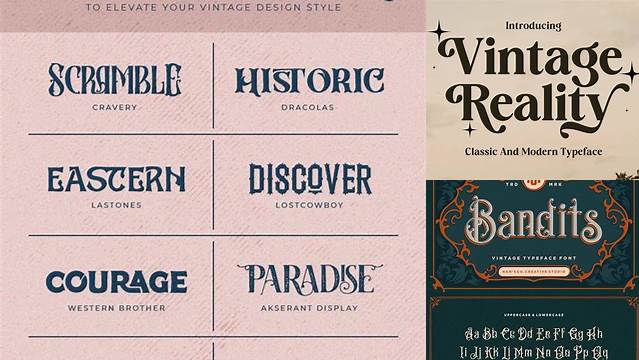
Vintage Fonts: Your Guide To Classic Typography
Hey everyone! Ever felt like your designs were missing that certain je ne sais quoi? Maybe they need a touch of history, a dash of nostalgia, or a whole heap of character. Well, guys, you're in luck! Today, we're diving deep into the world of free vintage fonts – the unsung heroes of design that can transform your projects from bland to grand. We'll explore where to find these typographic treasures, how to use them effectively, and even a few tips and tricks to make your designs really pop. Whether you're a seasoned designer or just starting out, this guide has something for everyone. So, grab your favorite beverage, settle in, and let's get started on our journey through the timeless world of free vintage fonts!
Free Vintage Fonts: A Treasure Trove for Designers
Okay, so what exactly are we talking about when we say free vintage fonts? Think of it like this: these are fonts that evoke the styles of yesteryear, drawing inspiration from specific eras, like the roaring twenties, the groovy sixties, or the elegant Victorian age. They're not just about mimicking old styles; they're about capturing the essence of a bygone era. The beauty of free vintage fonts is that they're incredibly versatile. You can use them for a wide array of projects, from crafting eye-catching logos and stunning websites to designing posters, invitations, and even social media graphics. They add an instant touch of personality and authenticity that can be difficult to achieve with more modern font styles. Finding the perfect free vintage fonts can feel like striking gold! But don't worry, we'll guide you through the best places to find these typographic gems.
It's essential to have a varied collection of fonts. Having a diverse range of free vintage fonts at your fingertips empowers you to choose the best fit for each project. Consider the specific era you're trying to emulate, the overall tone you want to convey, and the readability of the font. Remember that vintage fonts aren't just about aesthetics; they are also about visual communication. Readability is important, but so is capturing the specific feeling you are targeting. Remember to select a font that's legible, especially for body text. When choosing a font, ensure it complements the other design elements. Some of the most popular free vintage fonts are inspired by Art Deco, the Wild West, and vintage hand-lettering styles. By exploring these different styles, you can add depth and character to your designs, making them more appealing to your audience and leaving a lasting impression.
Where to Find Awesome Free Vintage Fonts
Types of Vintage Fonts and Their Uses
Now that you know where to find them, let's talk about the different types of free vintage fonts and how to use them to their full potential. Vintage fonts come in many shapes and styles, each evoking a particular aesthetic. Understanding these styles will help you select the perfect font for your projects. Here are some of the most popular types:
- Art Deco Fonts: These fonts are characterized by their geometric shapes, bold lines, and a sense of luxury. They're perfect for anything that needs a touch of glamour, such as event invitations, branding for high-end products, or even website headers.
- Victorian Fonts: Victorian fonts often feature elaborate serifs, ornate details, and a sense of old-world charm. They are often inspired by the Victorian era, but they are versatile and useful for different projects. You could use these fonts for book covers, wedding stationery, or anything that requires an elegant, classic look.
- Retro Fonts: Retro fonts are inspired by the design styles of the 1950s, 60s, and 70s. These fonts are excellent for evoking a nostalgic feel, perfect for posters, logos, and websites. They often have a playful, vibrant aesthetic and are very effective at grabbing attention.
- Western/Wild West Fonts: These fonts evoke the spirit of the Wild West, with their rugged, weathered appearances. If you're aiming for an authentic, rustic feel, these are the fonts for you. They work great for posters, logos, and any project related to the outdoors.
- Handwritten Fonts: Handwritten fonts add a personal, human touch to your designs. These are suitable for any project, such as personal projects or any kind of commercial ones. They are excellent for adding a friendly, approachable vibe. Whether you’re designing a logo, a website, or social media graphics, these fonts will add a layer of personality.
Knowing the characteristics of different vintage font styles helps you match the right font to your project. Think about the message you want to convey, the era you're trying to capture, and the overall tone of your design. Experiment with combining different fonts to create unique looks. With a basic understanding of different vintage font types, you can select the appropriate font. This ensures your design is not only visually appealing but also effectively communicates your message.
Pairing Free Vintage Fonts: Dos and Don'ts
So, you've got a fantastic collection of free vintage fonts. Now, how do you actually use them effectively? One of the most important things is pairing them with other fonts, and that's where things can get a little tricky. Here are some essential dos and don'ts to keep in mind:
- Do choose fonts that complement each other. Look for fonts that share similar design characteristics, such as the same x-height (the height of the lowercase x) or a similar overall style. This creates visual harmony.
- Do create a visual hierarchy. Use a bolder, more prominent font for headings and a more readable font for body text. This helps guide the reader's eye.
- Do consider the contrast between the fonts. Make sure there's enough contrast in terms of size, weight, and style. This helps to differentiate elements and create a dynamic look.
- Don't mix too many fonts. Sticking to two or three fonts is generally best. Too many fonts can make your design look cluttered and disorganized.
- Don't pair fonts that are too similar. They might end up clashing. Choose combinations where the differences are intentional.
- Don't forget readability. Always choose fonts that are easy to read, especially for body text. No one wants to squint to understand your message.
Pairing the correct font with another requires a bit of practice. Start by experimenting with different combinations. Observe how different styles work together and pay attention to how they affect the overall aesthetic. Consider the style you are trying to convey when pairing fonts. Use these guidelines to create compelling and visually appealing designs. By following these dos and don'ts, you can create a cohesive and visually appealing design. This ensures that your typography is not only beautiful but also easy to read and understand. It will also improve your design skill.
Mastering the Art of Typography with Vintage Fonts
Alright, now let's dive a little deeper into the art of using free vintage fonts. Typography is about much more than just choosing a pretty font; it's about creating a visual hierarchy, guiding the reader's eye, and ultimately, communicating your message effectively. Here are a few key things to consider:
- Leading (Line Spacing): Adjust the leading (the space between lines of text) to improve readability. Too little leading can make text difficult to read, while too much can make your design feel disconnected.
- Kerning (Letter Spacing): Pay attention to the kerning (the space between individual letters), especially in headings. Ensure that the spacing is consistent and that the letters don't appear to be too close together or too far apart.
- Tracking (Overall Letter Spacing): Adjust the tracking (the overall letter spacing of a word or block of text) to create a desired visual effect. This is very useful in headings, where you can use it to add emphasis. Adjusting tracking can make your text look more compact or spread out.
- Color and Contrast: Combine your free vintage fonts with colors that complement the vintage style. Think of muted tones, earthy colors, or contrasting colors that add visual interest. Use contrast to highlight important information.
Mastering typography takes practice and patience. Experiment with different techniques, observe how they affect your designs, and learn from your mistakes. Think of how you can use typography to highlight key information, create visual interest, and guide the reader's eye. The goal is to create a visual flow. By taking the time to master these typographic techniques, you'll take your designs to the next level and create typography that not only looks amazing but also communicates your message effectively. It's all about crafting a visual experience.
Free Vintage Fonts for Logos: Make a Statement
Logos are the face of your brand, so choosing the right fonts is super important! Free vintage fonts can be particularly effective in creating a logo that stands out and conveys a specific message. When using vintage fonts in logos, here are some things to consider:
- Choose fonts that reflect your brand's personality. Does your brand have a sense of history? Choose a font that reflects your brand's core values and target audience. A vintage font can instantly communicate the vibe you want to create.
- Ensure the font is legible at various sizes. A logo will be used on business cards and billboards. The font you select for the logo must be easy to read at any size. Keep in mind that it will be used in various contexts.
- Consider the color and spacing. Select the font in a way that it looks great in different color palettes. Make sure the spacing is clear. The logo should be simple and memorable.
- Test different variations. Test out your logo with different color schemes and layouts to see what works best.
When creating logos, remember to consider the brand's overall message. A vintage font can add a lot of personality to a logo. The logo should be timeless and appeal to your target audience. Your logo is your brand's first impression. By taking the time to choose the right font, you're setting the stage for success. Vintage fonts can give your brand identity a unique and memorable look. This will set you apart from the competition. Consider your brand's overall image and how you can communicate this through your logo. Choosing the right font style and layout will help your logo's message.
Free Vintage Fonts for Websites: Creating a Retro Vibe
Websites are all about creating a visual experience, and free vintage fonts can play a huge role in that. Think of it like setting the stage for your content. Here's how to make the most of vintage fonts on your website:
- Use them for headings and titles. Vintage fonts can add visual interest to headings and titles. They will grab the reader's attention. A well-designed heading can improve the overall design of the website.
- Limit their use for body text. While some vintage fonts are great for body text, many can be difficult to read. Use a clean, readable font for the body text. It can also improve readability, which will create a positive user experience.
- Consider the overall design. The font should complement the website's color scheme, images, and other design elements. This ensures the website has a cohesive look. Think of your website's target audience. Choose the right fonts to make it more appealing.
- Ensure responsiveness. Your website will be viewed on different devices. Make sure the font is responsive and looks good on all devices. This creates an accessible design. Responsiveness ensures a positive user experience.
Using vintage fonts on your website can create a unique and engaging experience. Consider your content. Make sure the vintage font you select complements the overall aesthetic and reinforces your brand identity. Your website is your online presence. Using the right vintage fonts can make your website stand out and create a memorable user experience. You can use vintage fonts to create a truly unforgettable website. Remember to always prioritize readability and accessibility when choosing vintage fonts. The website will be more usable and user-friendly.
Free Vintage Fonts for Print Design: Making an Impression
Print design is all about making a lasting impression, and free vintage fonts are perfect for creating designs that people will remember. They add a touch of nostalgia, and character. Print designs can range from posters and flyers to business cards and brochures. To make the most of vintage fonts in print design:
- Choose fonts that align with your print project's theme. Different vintage fonts have different purposes. They are inspired by diverse styles. Choose the font that complements the design.
- Consider the paper and printing techniques. The texture and color of the paper can impact the appearance of your font. Printing techniques can also make the font stand out. Consider these factors.
- Ensure readability is high. Even in print, readability is important. Make sure your text is easy to read. This is true for any print design.
- Experiment with different layouts. A well-designed layout can enhance the visual appeal of your print project. The layout and typography work together. Experiment with different layouts.
Vintage fonts can be especially effective in print design. You can add visual interest and create something memorable. You should consider readability and visual harmony to have a successful print design. Print design is a powerful medium for creating a lasting impression. Vintage fonts can add a unique and attractive look to your print design. Experiment with different layouts, printing techniques, and paper textures to achieve the desired effect.
Combining Vintage Fonts with Modern Design Elements
While free vintage fonts are amazing, they don't have to live in a purely vintage world. In fact, combining them with modern design elements can create really stunning and unique results. Think of it as a fusion of the old and the new. Here's how to do it:
- Use a modern color palette. Pair your vintage font with a modern color palette. This could include vibrant colors, minimalist shades, or a monochromatic scheme. The contrast creates a fresh feel.
- Incorporate negative space. Negative space (the empty space around your design elements) is a key element of modern design. It can give your design a clean, contemporary look. This can balance the visual weight of the vintage font.
- Use modern imagery. Incorporate modern photography or illustrations to contrast the vintage font. This creates a juxtaposition between the old and the new. This will create an engaging visual experience.
- Keep the layout clean and simple. A clean and simple layout keeps the design from feeling too cluttered. This will help to modernize the vintage feel. The layout will be easy to understand.
This combination gives you the best of both worlds. By experimenting, you can make something very unique. Don't be afraid to push boundaries and think outside the box. This will create a unique and modern design. The overall design will have its own distinct visual identity. Experimentation can help you refine your approach to design. The goal is to create a design that is both visually appealing and easy to understand.
Free Vintage Fonts for Social Media: Making Your Posts Stand Out
Social media is all about standing out from the crowd, and free vintage fonts can help you do just that! They can give your posts a unique look that instantly grabs attention. To make your social media posts stand out:
- Use them for headlines and quotes. The vintage fonts can add visual interest to your posts. Bold headlines will have a big impact on social media users. This will quickly grab attention.
- Create branded templates. Branding is important for social media. Create consistent brand templates using your favorite vintage fonts. This creates a cohesive feel. Your followers can recognize your posts easily.
- Consider the platform's style. The platform will shape your content. Choose a font that fits the platform's style. The best option will be the one that suits the audience and the brand's message.
- Use animations and effects. Animated posts can be very engaging. Experiment with different effects. Animation helps to make your posts more dynamic.
Vintage fonts can add a unique look to your social media posts. This helps you stand out and connect with your audience. Ensure that your content is engaging and visually appealing. You can create content that sparks conversation. This will amplify your online presence. It can boost your brand's message.
The Psychology of Vintage Fonts: What Do They Communicate?
Free vintage fonts do more than just look pretty – they communicate specific messages and evoke particular feelings. They play a role in the psychology of design. Here's what they communicate:
- Nostalgia: They instantly evoke a sense of nostalgia. Vintage fonts will connect with people's memories. They may remind people of a certain era.
- Authenticity: They can create an authentic feel. Vintage fonts often evoke a sense of history. This is especially relevant for vintage brands.
- Trust: They can build trust. The use of vintage fonts signals stability and reliability. They evoke a sense of history.
- Creativity: They suggest creativity. The different fonts offer a range of styles. This is the perfect design choice for creative projects.
- Sophistication: They can add sophistication. A vintage font can make the content more elegant. This adds a level of visual appeal.
Knowing the psychology of free vintage fonts helps you choose the right font. It will help you communicate your brand's message. You can create an impactful design. This will resonate with your target audience. It adds meaning to your brand's identity. This will allow you to convey the message effectively.
Accessibility and Vintage Fonts: Balancing Style and Readability
While free vintage fonts can be beautiful, it's important to consider accessibility. How can you make sure your design is readable for everyone? Here are a few things to keep in mind:
- Choose readable fonts. Some vintage fonts can be hard to read. Choose fonts that are clear. Always make sure your audience can read your content.
- Use sufficient contrast. Make sure there is enough contrast between the font and the background. Contrast ensures the text is easy to read. This will make the text readable for everyone.
- Consider font size. Use a font size that's easy to read. Adjust font size according to the size of the screen. This ensures easy readability.
- Provide alternative text. If you're using images with text, provide alternative text descriptions. This will assist users with screen readers. The content will be accessible to everyone.
Balancing style and readability is key to accessible design. This will allow everyone to enjoy your content. Keep in mind the needs of your target audience. By prioritizing accessibility, you can create a design that is both visually appealing and user-friendly. This is crucial to ensure everyone can access your content.
Tips for Choosing the Right Vintage Font for Your Project
Choosing the right font is crucial for any project. Here are some tips to help you choose the perfect free vintage font:
- Define your project's goals and target audience. Know your target audience and message before you select a font. Consider the project's purpose and goals. The goal is to use the right font to represent the brand.
- Research different vintage styles. There are diverse styles of fonts. Research different styles to understand their unique aesthetics. These fonts are versatile and can fit the project needs.
- Consider the font's legibility. The font needs to be legible. Always ensure that it's readable, especially for body text. If the text is not readable, then the content is not useful.
- Test the font. Test the font in your design. Test how the font looks in different sizes. Also test how it will look on different backgrounds. The overall look of your project will determine the font.
Choosing the right vintage font will elevate your designs. Make sure the font aligns with your project's goals and target audience. The right font can improve the overall look of your content. Make sure the font is readable. You will be able to convey the message correctly. This will contribute to the success of your project. This will improve the readability and the overall experience of your audience.
Free Vintage Fonts and Copyright: What You Need to Know
Navigating the world of free vintage fonts and copyright can be a bit tricky, but it's super important to understand the basics. Here's what you need to know:
- License Types: Most free fonts come with a license. This license will determine how you can use the font. Always check the license carefully. The license includes the permitted uses.
- Personal Use vs. Commercial Use: Some fonts are free for personal use. Others are free for commercial use. Check the license to see which one applies. Commercial use involves projects for profit. Personal use is for personal use only.
- Attribution: Some licenses require you to give credit to the font designer. Check the license to see if this is required. Giving credit is a simple step. It is also important.
- Modifying Fonts: Check the license to see if you're allowed to modify the font. Some licenses allow for modifications. Others don't. This will impact the design of your project.
Respecting copyright is essential when using free fonts. It ensures designers get proper credit. Understanding licenses keeps you out of legal trouble. Read and understand the license. You will be safe. This will protect both you and the designer. If you're not sure about something, seek legal advice. By following these guidelines, you can create great designs.
Customizing and Modifying Free Vintage Fonts
Want to make your free vintage fonts truly unique? You can customize and modify them to fit your specific project! Here's how:
- Font Editors: Use font editing software to modify the font. Font editing tools help customize each design. This gives a unique look. These tools help you adjust the spacing, size, and more.
- Lettering and Glyphs: Explore alternative characters or glyphs. These add a unique look to the design. Some vintage fonts contain interesting details. You can mix them up.
- Color and Effects: Experiment with color and effects. These include shadows and gradients. These can change the overall design. Experimenting can make your designs pop.
- Combine Different Fonts: Combine different vintage fonts to create custom styles. Pair fonts that complement each other. This offers more variety to your projects.
Customizing your fonts can create unique designs. This gives you control over the final look. Be creative and have fun! The goal is to craft a design that perfectly fits your project. Experimentation and creativity can create truly unique designs. This is a perfect way to give your projects a personal touch.
Free Vintage Fonts for Different Design Software
Good news, guys! Free vintage fonts work with pretty much any design software you can think of. Here's a quick rundown for some popular programs:
- Adobe Photoshop and Illustrator: These are industry standards. Just download your font and install it on your computer. Then, it will appear in the font menus of your design programs. Start creating your design with your vintage font.
- Canva: Canva is a user-friendly design tool. Upload the fonts to Canva. Once they are uploaded, you can access them. Start creating your projects. Canva is a good option for beginners.
- Microsoft Word and Other Office Programs: Yes, you can use vintage fonts in these programs! This can be good for document design. The fonts can make the designs more interesting. The fonts add a personal touch.
- Other Design Software: The process is the same. Download and install the fonts. Then, they should appear in the font menus. The process should be the same on any design software.
No matter your design software, you can use these fonts. By knowing how to use these fonts, you can use them in almost any design project. Experiment and have fun with the design! This allows you to enhance your creativity. Always make sure you are complying with the license when using your fonts.
The Future of Vintage Fonts: Trends and Predictions
So, what does the future hold for free vintage fonts? Well, here are some trends and predictions:
- Modern Interpretations: We'll see more modern interpretations of vintage styles. These will combine classic aesthetics with contemporary design. The blend of old and new is an emerging trend.
- More Variable Fonts: Variable fonts allow for incredible flexibility. They allow you to change things like the weight, width, and slant. You have more control over the design. Expect to see more of these in the future.
- Emphasis on Readability: Readability will continue to be a priority. Vintage fonts will evolve to be more readable. It will create designs that are appealing and effective.
- Increased Use in Digital Design: Vintage fonts will continue to grow. It will continue in the digital design. This trend will bring a touch of nostalgia. The digital world will have more vintage fonts.
The future of vintage fonts looks bright. Trends in design will continue to evolve. Vintage fonts will adapt to new technologies and creative design. Always stay updated on the newest design trends. By being informed, you'll be ready for the future. This will empower you to incorporate vintage fonts into your projects. These fonts will still play a part in the design world.
Resources and Tutorials for Learning About Vintage Fonts
Want to dive deeper into the world of free vintage fonts? Here are some resources and tutorials:
- Online Courses: Platforms like Skillshare and Udemy offer courses on typography. These will teach you about vintage fonts. You can learn more about the history and the design.
- Design Blogs: Design blogs offer articles and tutorials. These articles often cover font selection and usage. These blogs are a great resource for design. They help you stay updated on the trends.
- Font Websites: Some font websites offer resources. These can range from articles to tutorials. These are good options. You can get a more detailed look at vintage fonts.
- Books: Books on typography. These books can offer you great insight into the history. They offer the history of design. They can help you learn about the technical aspects of design.
Learning is an ongoing process. These resources will provide more information on vintage fonts. With access to different resources, you can enhance your knowledge. Start learning and experiment! Make the most of these resources. You can also add more fonts to your collection. This will improve your creative skills.
Troubleshooting Common Issues with Vintage Fonts
Sometimes, things don't go perfectly. Here's how to troubleshoot common issues with your free vintage fonts:
- Font Doesn't Show Up: Ensure the font is correctly installed. Also check the font cache. Restart your design software. If this doesn't work, try reinstalling the font.
- Glyphs Not Displaying Correctly: Some fonts have special characters called glyphs. These glyphs can be accessed by using the software's character panel. Make sure the software you are using supports these special characters.
- Readability Issues: Some vintage fonts are not easy to read. This can be due to the font's style. Adjust the font size, tracking, and leading. Always choose fonts that are easy to read.
- Licensing Problems: Always be aware of the license. Make sure you are following the guidelines. If you have any questions, contact the designer.
Troubleshooting can be a part of your design experience. By keeping these tips in mind, you can address issues. You will make your designs look the way you want. Don't be afraid to experiment and learn. The process may take some time. Always refer back to the terms of use.
Case Studies: Successful Use of Free Vintage Fonts in Design
Let's get inspired! Here are some case studies of designs. They use free vintage fonts to great effect:
- Logo Design: You can use vintage fonts to add personality. Many businesses use vintage fonts. This is a great way to communicate the brand's message.
- Website Design: Vintage fonts can improve the appearance of websites. They add an exciting look to the websites. The fonts can make the website more interesting.
- Poster Design: Vintage fonts can make posters unique. Some fonts are used for historical events. Others are used for art. This creates a unique style.
- Social Media Graphics: Vintage fonts can set the tone. This can make your social media stand out. This will attract attention to your content.
These case studies show how free vintage fonts can be effective. By studying these examples, you will learn about vintage fonts. The examples may also inspire you to add more personality. Learning from other people's work can inspire your creativity.
Staying Updated on Free Vintage Font Trends
The design world is always changing. How do you keep up with the latest free vintage font trends? Here's how:
- Follow Design Blogs: Design blogs cover current trends. These blogs will help you know what is popular. This is the perfect option for keeping up-to-date.
- Explore Font Websites: Regularly browse font websites. These websites frequently update their selections. You may discover the new fonts. These fonts are easy to use.
- Join Design Communities: Join design communities. These include online forums and social media groups. They are the perfect ways to interact with other designers.
- Experiment: Experiment with new fonts and styles. Push your boundaries. Experiment with different fonts. This will increase your creativity.
Keeping up with design trends is important. With these resources, you can stay updated. By staying updated on the latest trends, you can create outstanding designs. You will be able to create stunning designs. You will also be inspired to experiment with different fonts.